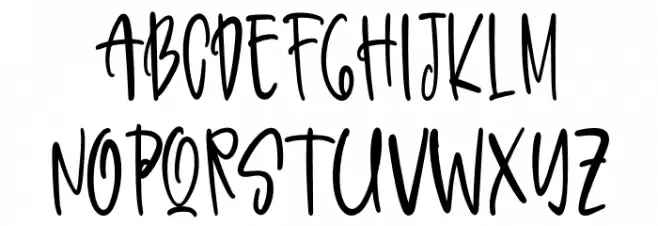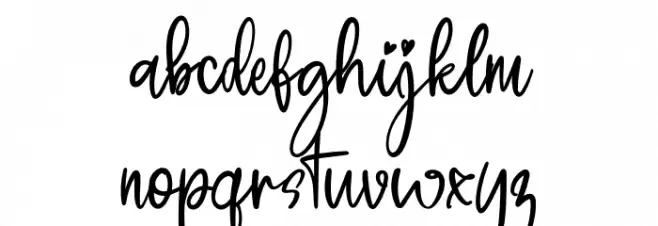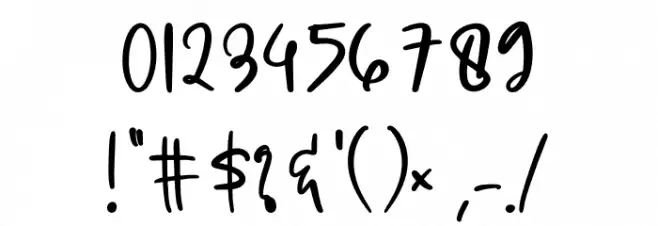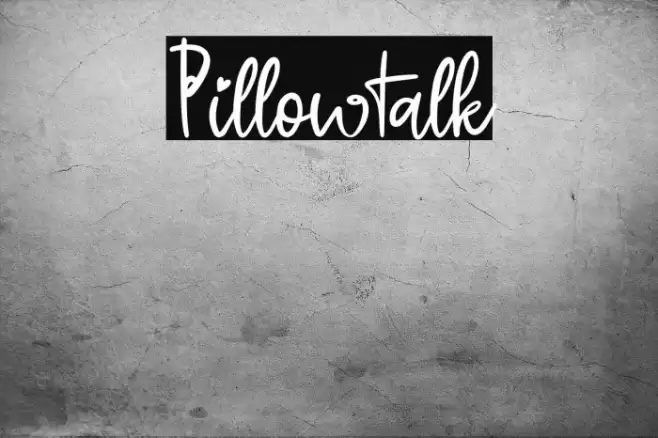
Pillowtalk Font
Pillowtalk Description
A playful, handwritten script font with a casual and friendly appearance, featuring varying stroke widths and a slightly irregular baseline.
Playful handwritten script font.
- Font: Pillowtalk
- Proposed Projects: Greeting cards, invitations, personal branding.
- Category: Handwritten
- Overall Style: Casual, Friendly
- Use Case: Logos, Invitations, Personal projects